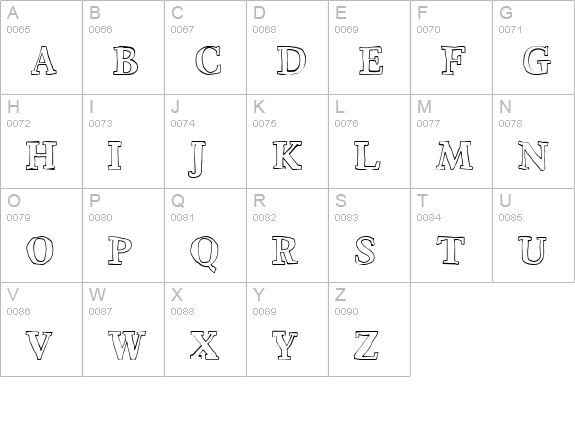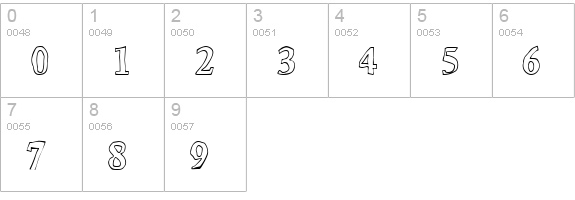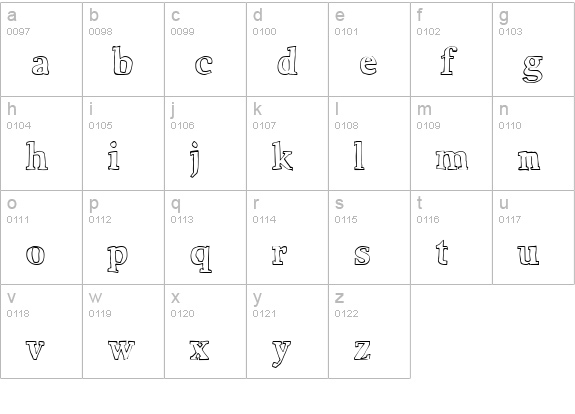
Introducing Bounty font, a versatile and stylish typeface that exudes elegance and sophistication. With its clean lines and contemporary aesthetic, Bounty is perfect for a wide range of design projects, from branding to editorial layouts. This exquisite font features a unique blend of classic and modern elements, making it a standout choice for any creative endeavor. Whether you're looking to add a touch of sophistication to your next project or simply want to make a statement with your typography, Bounty has got you covered. Best of all, Bounty font is completely free to download at FontsMarket.com. So why wait? Elevate your designs with this stunning typeface today and make a lasting impression with Bounty.